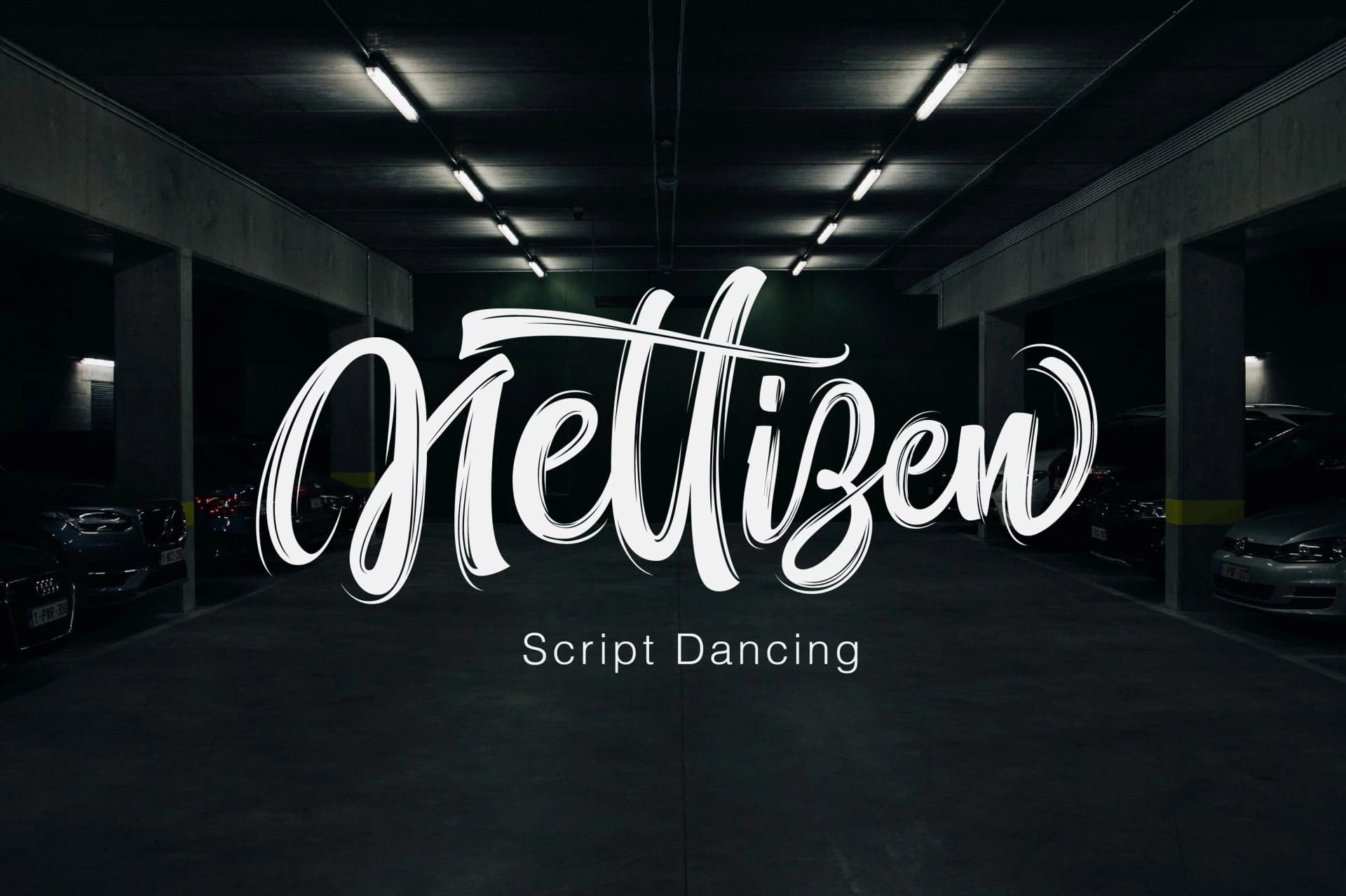
Nettizen by Olexstudio is a contemporary brush script that brings authentic handwritten character to digital projects. This versatile typeface strikes an excellent balance between artistic flair and readability, making it ideal for designers seeking a personal yet polished aesthetic without sacrificing sophistication. The flowing letterforms capture the spontaneity of traditional calligraphy while maintaining clean, modern sensibilities that work seamlessly across multiple applications and screen sizes.
This dynamic script shines on wedding invitation suites where intimate details require warmth and personality, greeting card designs that benefit from hand-lettered charm, and boutique beauty brand packaging seeking an artisanal, high-end feel. It's equally effective on personalized stationery projects and Instagram post graphics where authentic human touches genuinely resonate with your audience. Whether you're designing custom gift tags, crafting restaurant menu headers, or developing brand identities for independent fashion labels and lifestyle brands, Nettizen delivers the relaxed elegance that contemporary consumers increasingly seek and respond to.
The typeface's smooth letterforms and balanced spacing make it practical for both display and short body text applications, giving designers meaningful flexibility across their creative projects. The consistent character weight and spacing ensure readability even at smaller sizes. Explore Nettizen on Creative Fabrica and discover how this modern brush script can infuse your next creative endeavor with genuine personality and professional appeal.
Nettizen Font is a script font that shines as a display or heading face. Pair it with a clean sans-serif or serif font for body text β the contrast creates a clear hierarchy while the two styles stay balanced and easy to read.
Nettizen Font
by Olexstudio